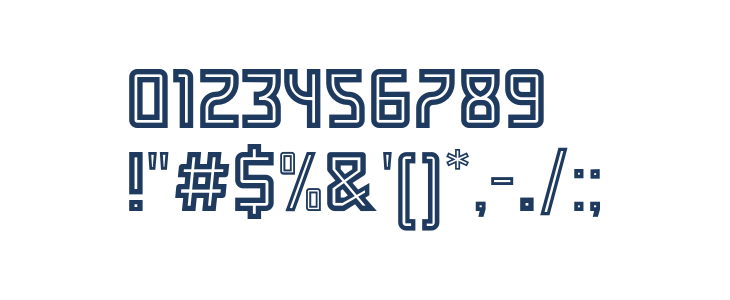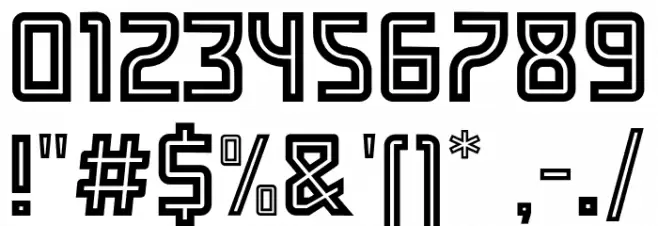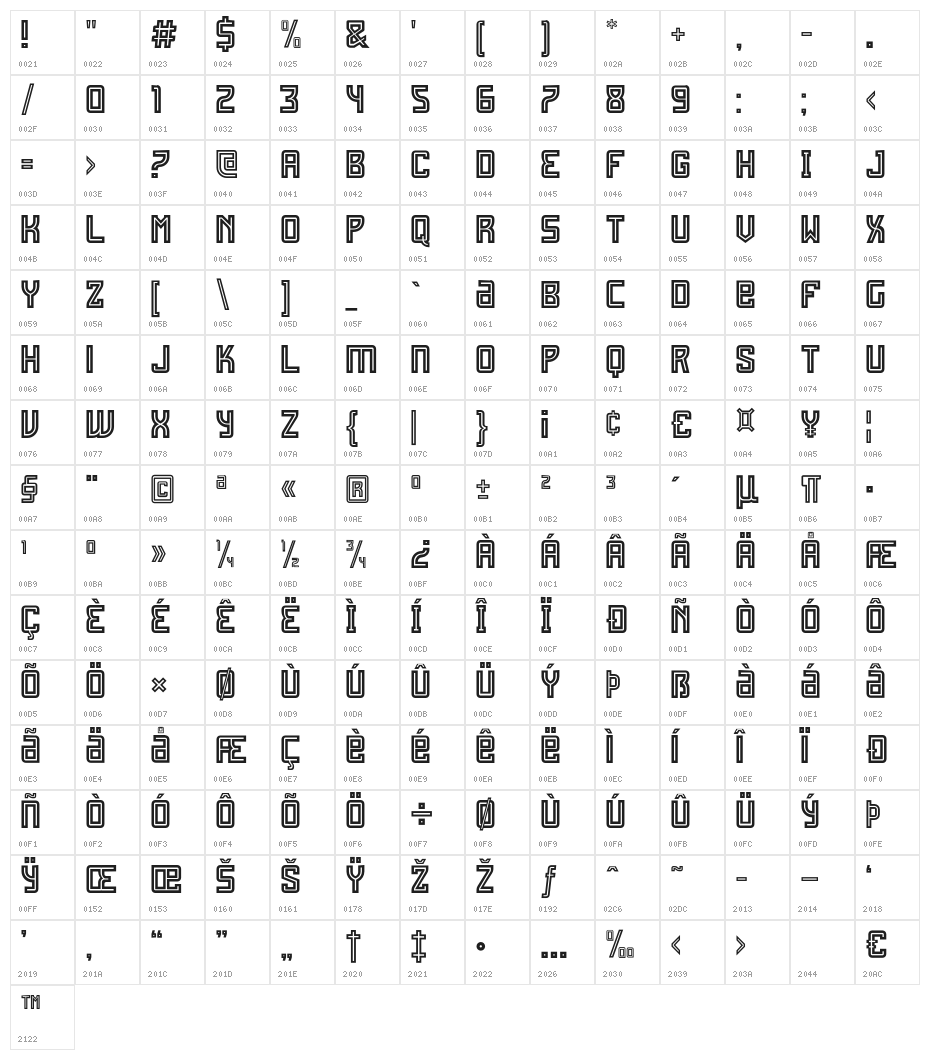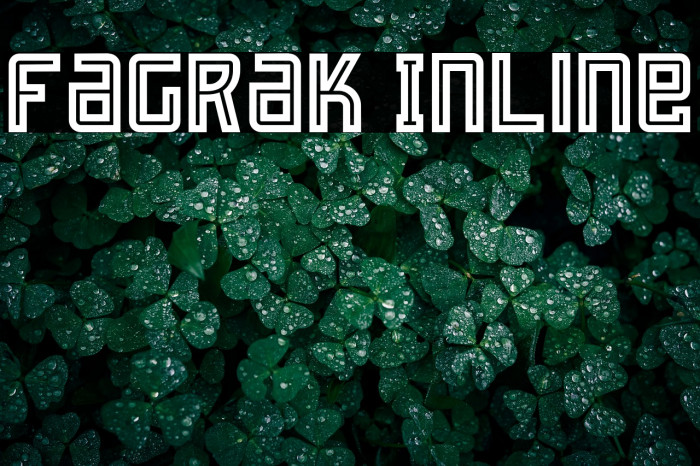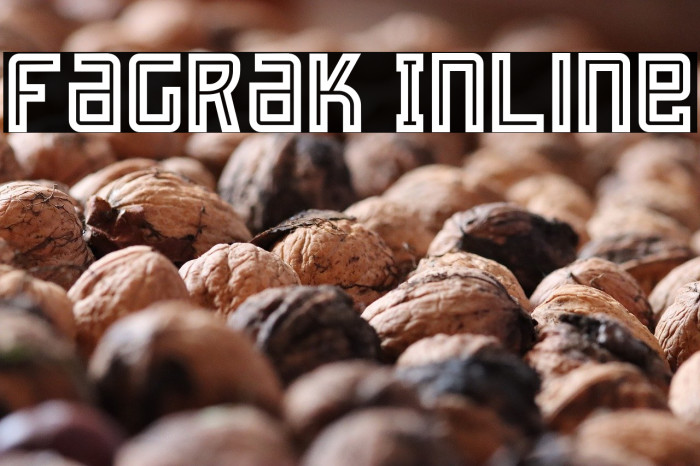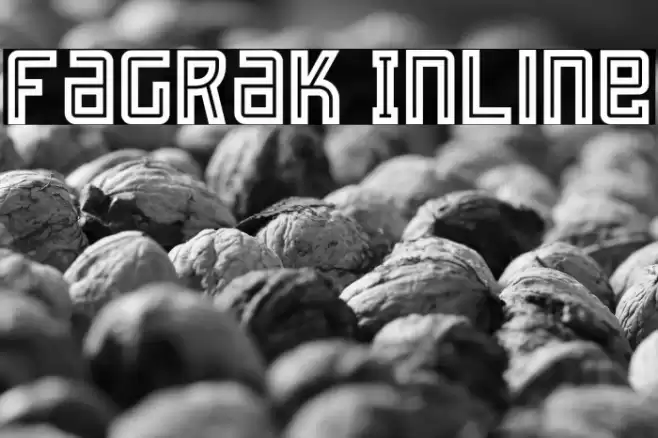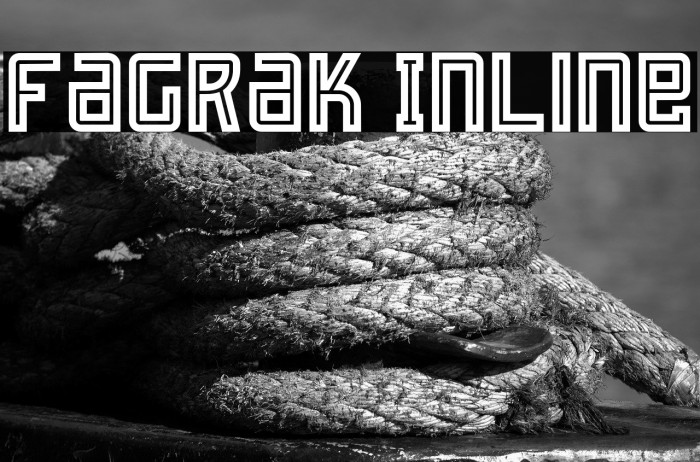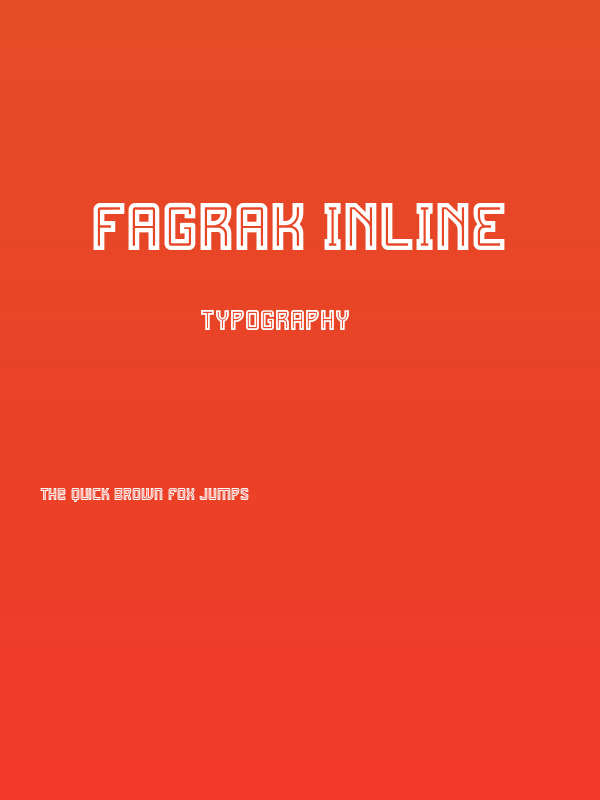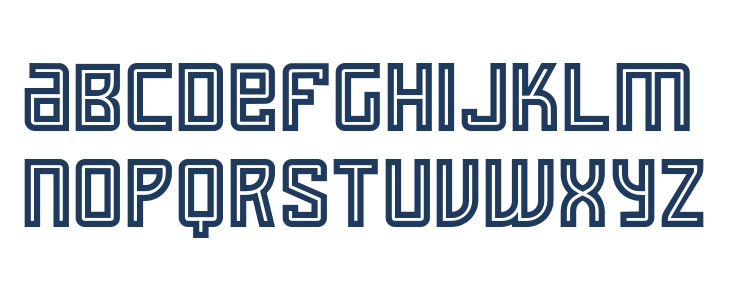
Fagrak Inline Font
Fagrak Inline Description
This font features a bold, geometric design with a distinct inline style that adds depth and dimension to each character. The uppercase and lowercase letters maintain a consistent structure, characterized by sharp angles and clean lines. The numerals and special characters follow the same aesthetic, ensuring uniformity across all elements. The font's unique inline detail creates a striking visual effect, making it ideal for attention-grabbing designs. Its modern and futuristic appearance is well-suited for projects that require a bold statement.
| Proposed Projects | Ideal for branding, posters, headlines, and any design that requires a modern, eye-catching font. |